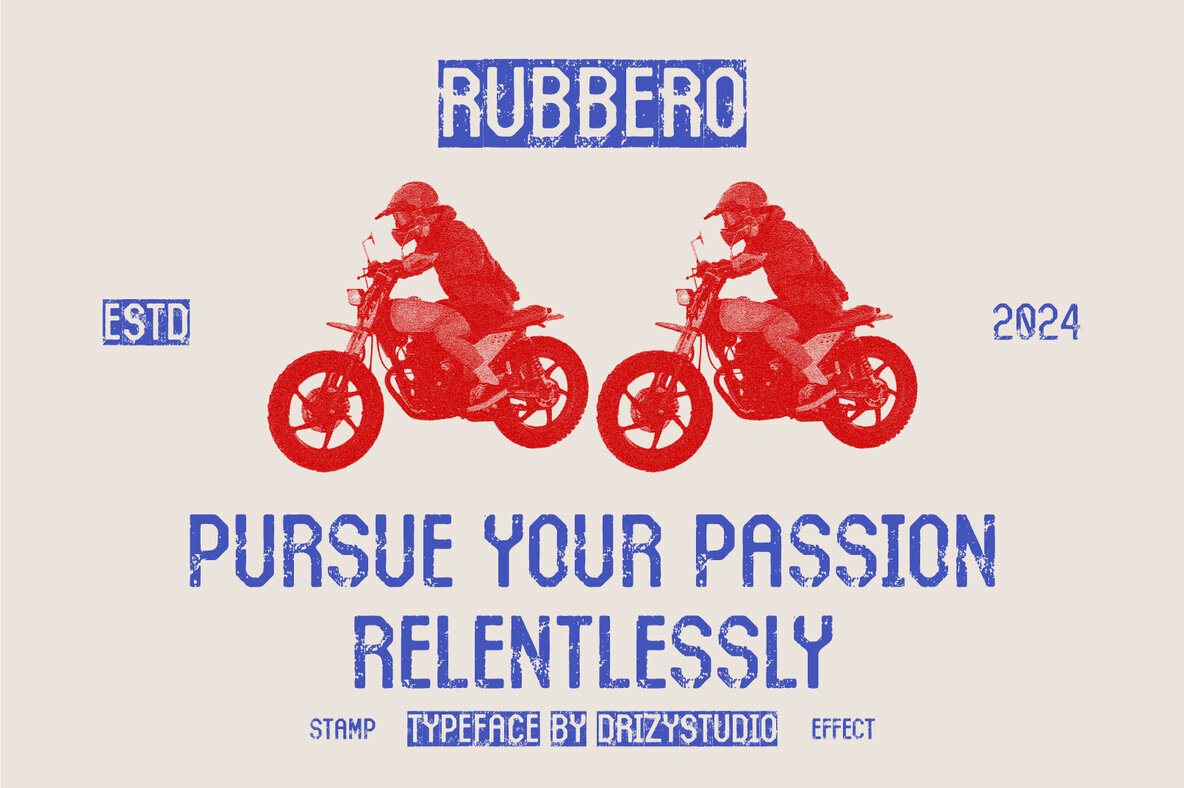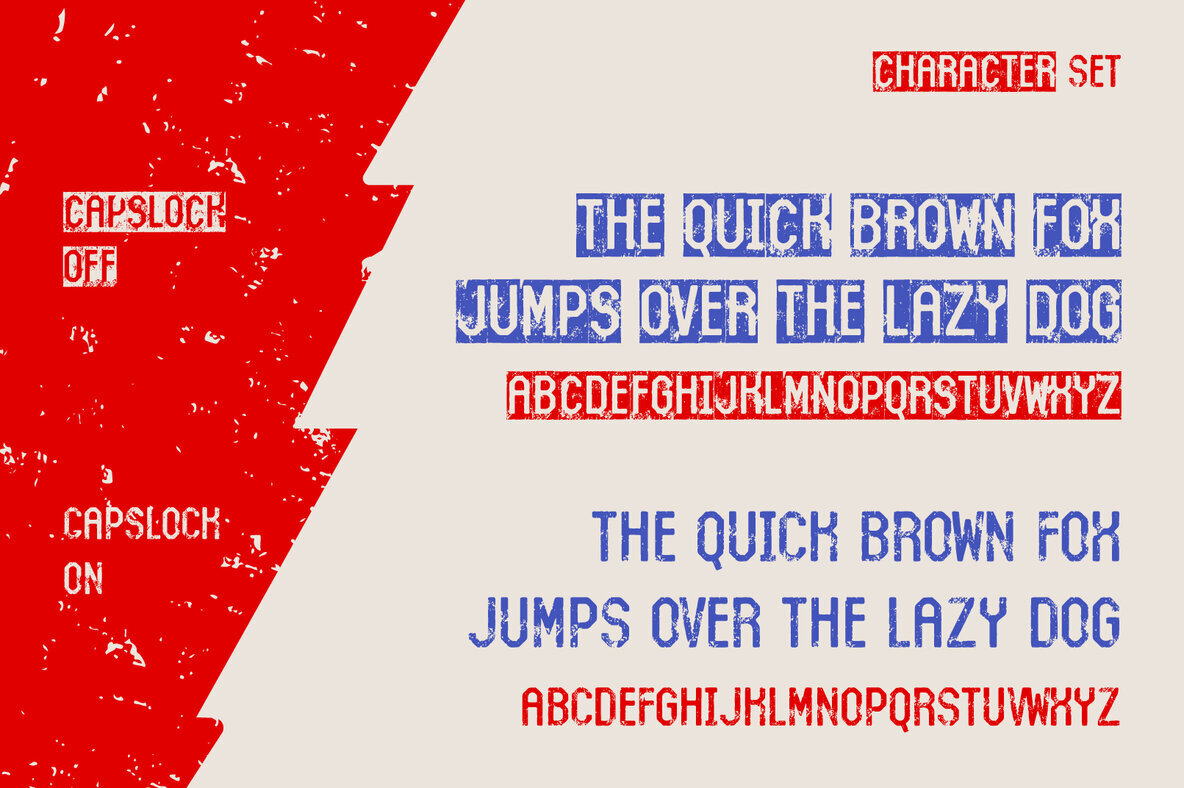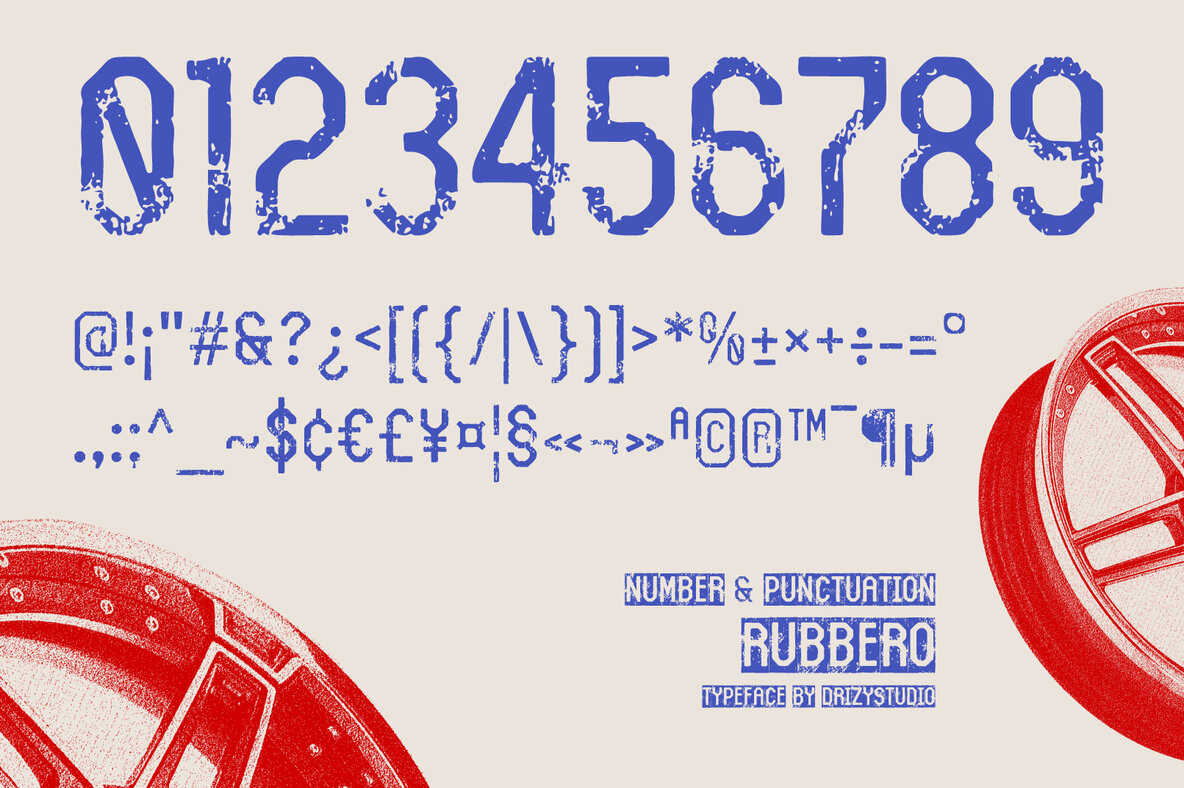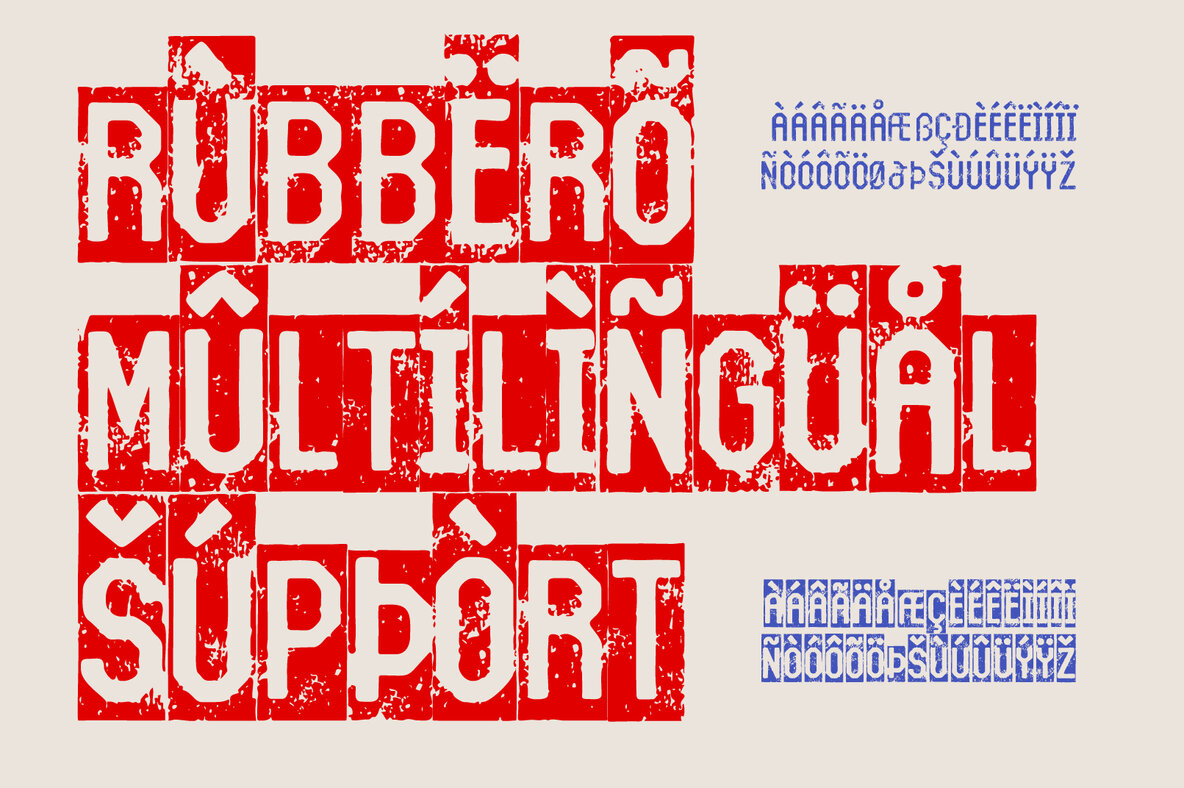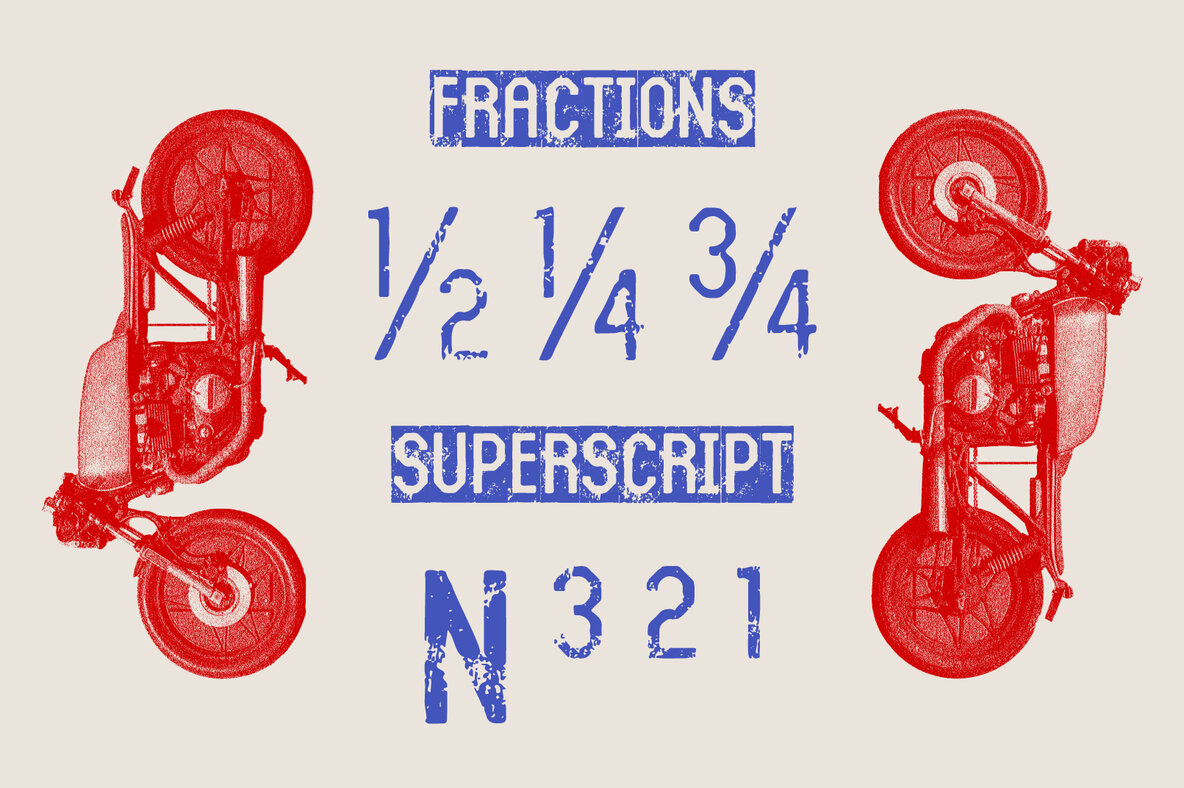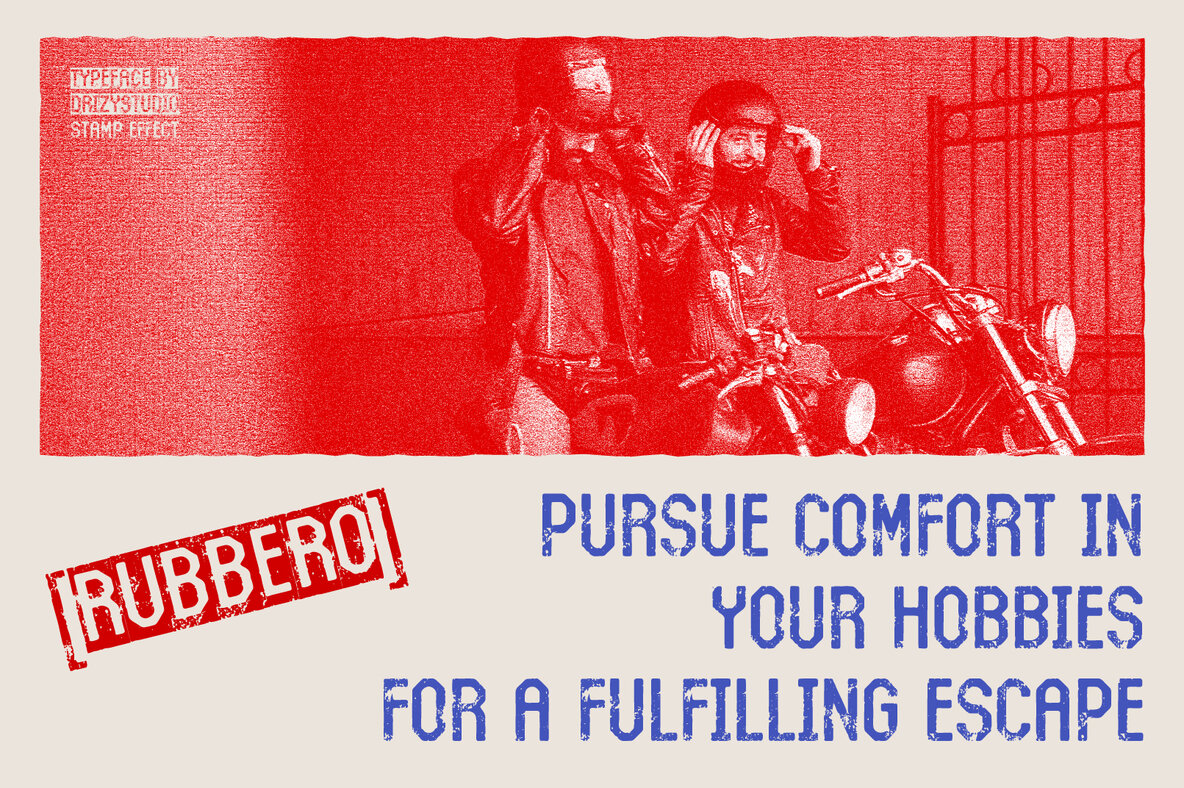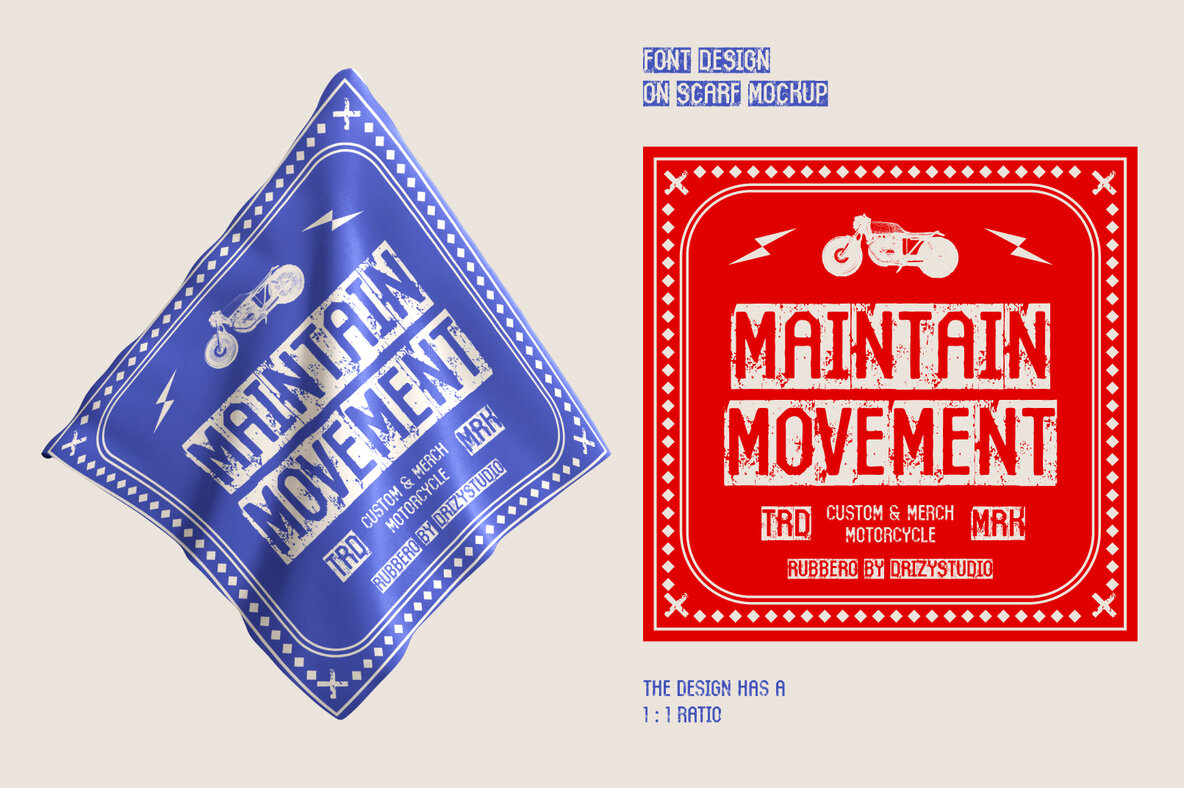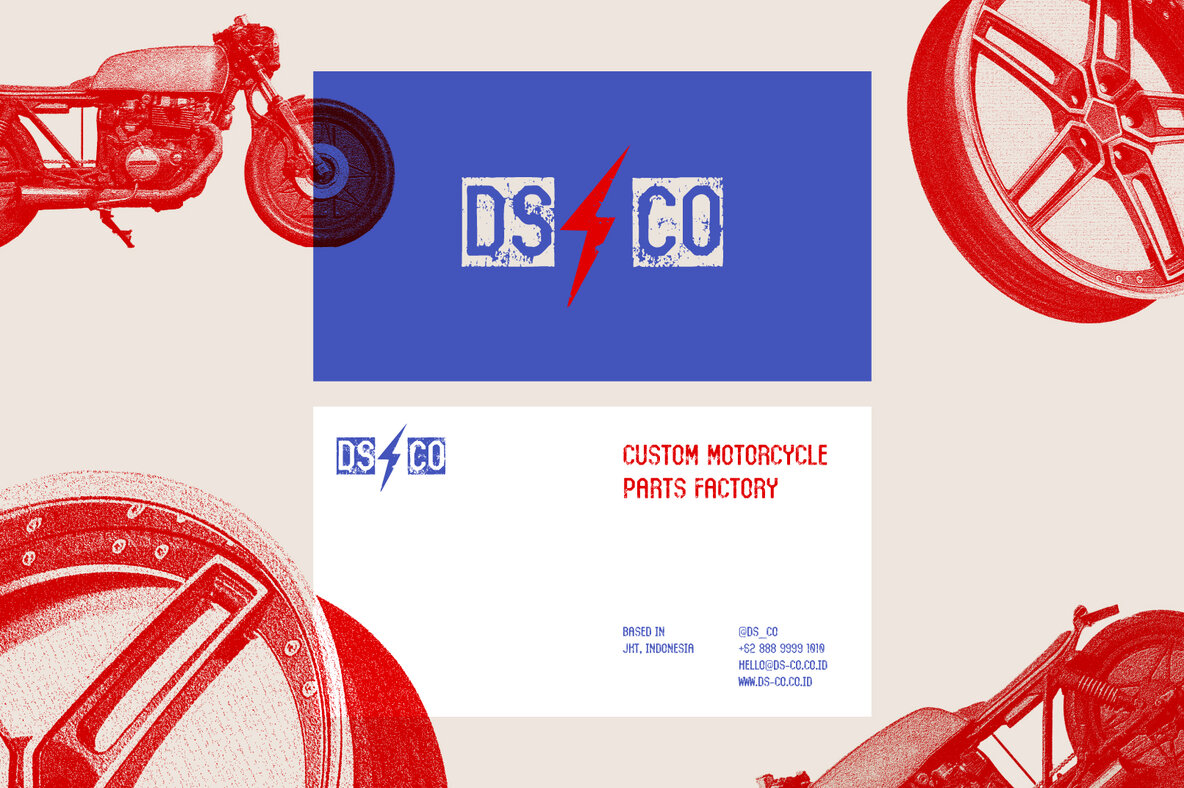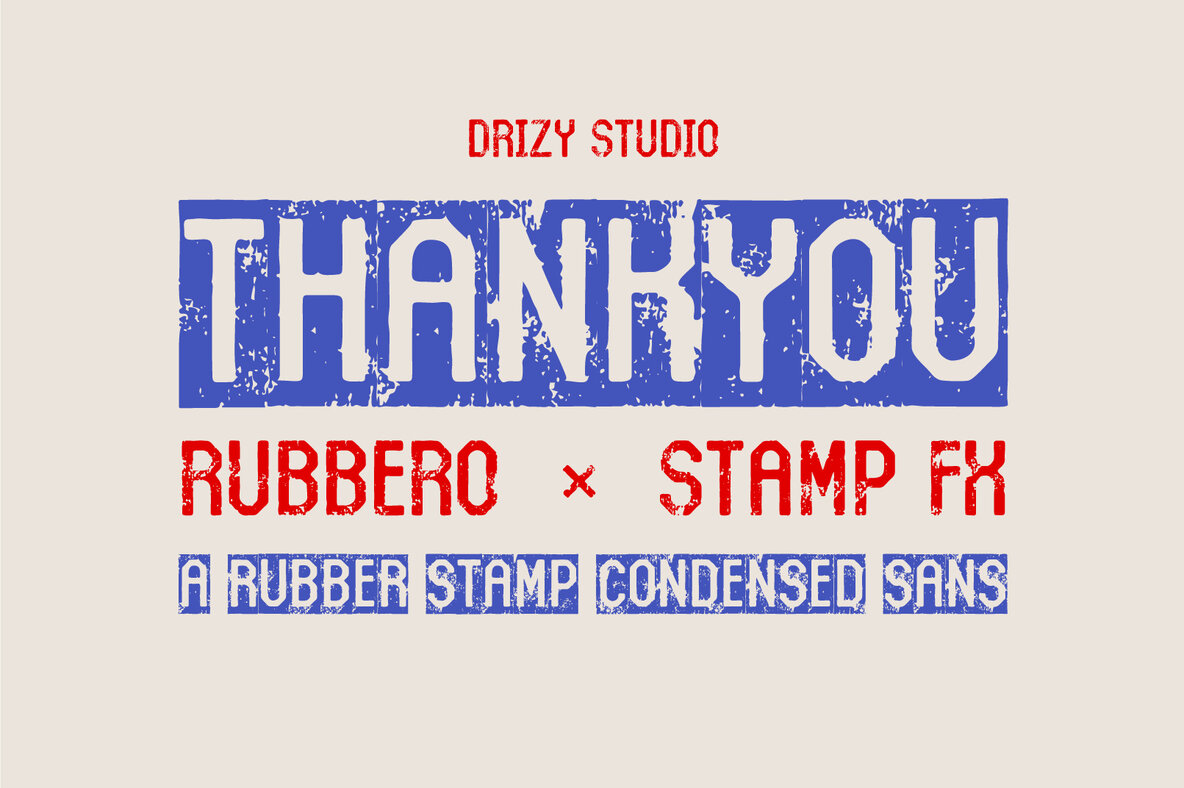
Rubbero Font
Rubbero Stamp
Rubbero is a condensed font designed for projects that require a compact yet impactful aesthetic. Inspired by rubber stamps, its distinctive appearance brings a sense of authenticity and nostalgia to your designs. Whether used in digital or print applications, Rubbero’s unique character enhances personality and charm, making it an excellent choice for various creative endeavors.
This font features an all-caps character set, including punctuation and numbers, and supports multiple languages. Its versatility allows for seamless integration into a wide range of projects, from branding and advertising to editorial and packaging design.